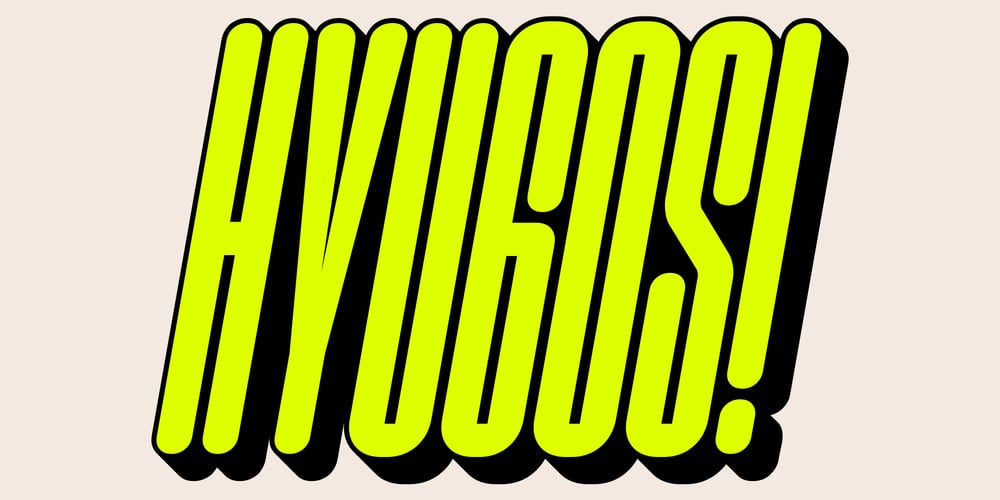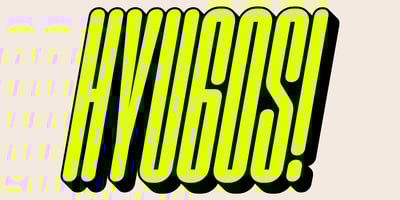
Hyugos Font Family was designed by Wisnu Cipto Wibowo and published by Fateh.Lab. Hyugos contains 24 styles and family package options. Hyugos is a condensed type of font that has a different character from the previous condensed font, Hyugos has a strong but soft character, with a cheerful and fresh theme, supported by 24 choices of font types.Hyugos is able to answer your current needs who are designing something great. Its weight is superior in posters, social media, headlines, magazine titles, clothing, large print formats – and wherever you want to see it.